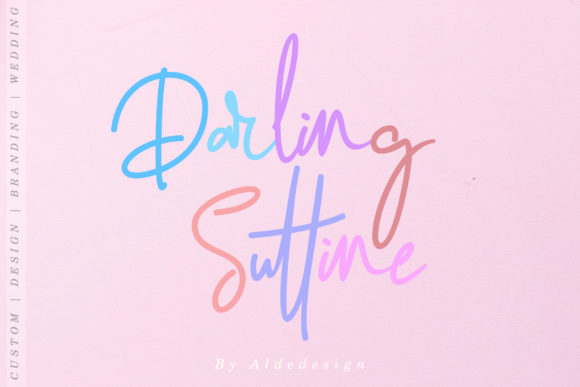
About Darling Suttine Font
The Darling Suttine is a font with an awesome and classy feel. It has a natural, yet elegant touch and is absolutely easy to use.
It’s a great choice for watermarks on branding, wedding stationary, photography, signatures, logo designs, album covers, business cards, quotes, and much more!